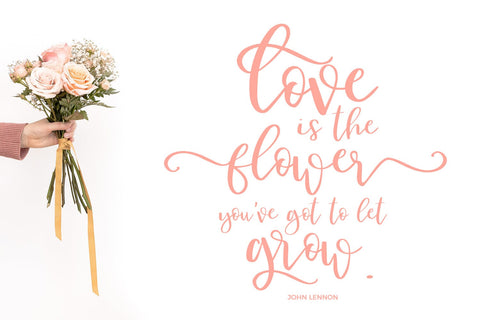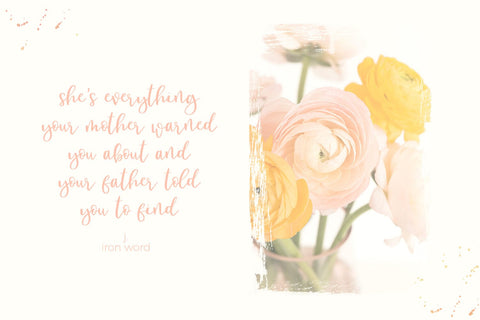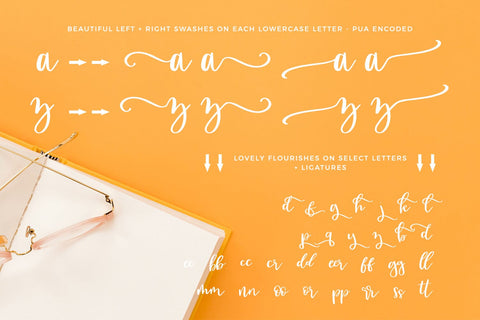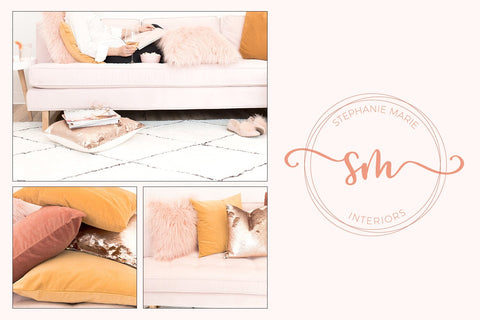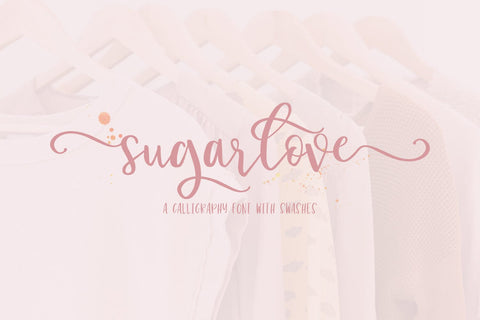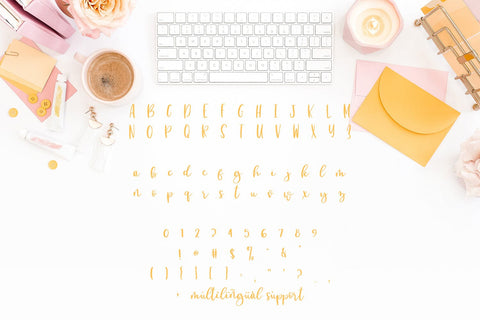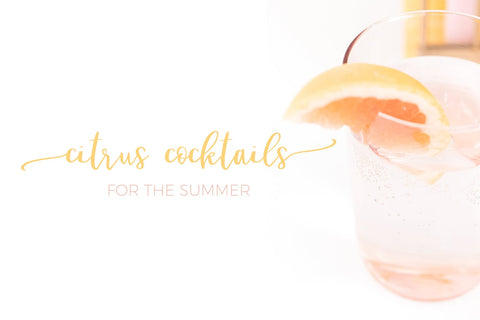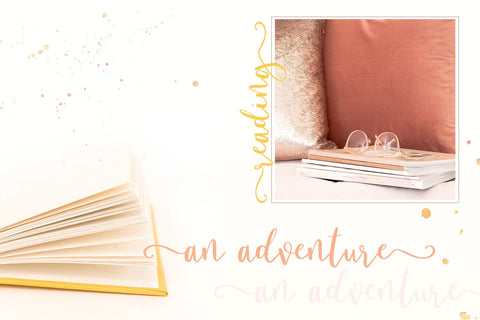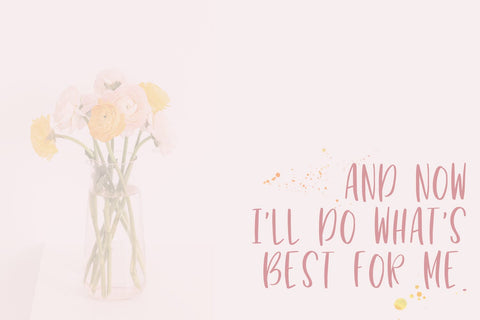
Sugarlove Calligraphy Font
Sugarlove is a hand-lettered bouncy calligraphy script. It has two different left + right swash options for each lowercase character, commonly used double letter ligatures, and beautiful flourishing on select characters. Sugarlove is warm like the summer and bright like citrus — it’s perfect for use in feminine logos + branding, magazines, quote graphics, and more…and the caps even look fab used by themselves.